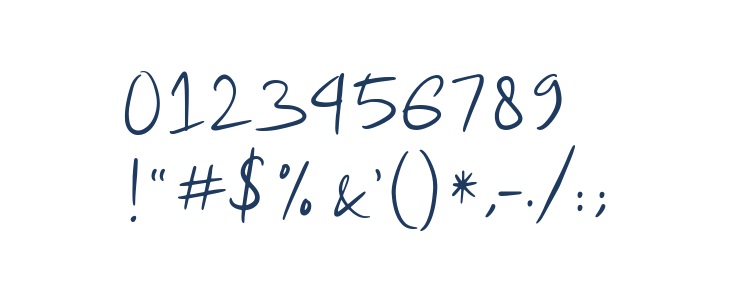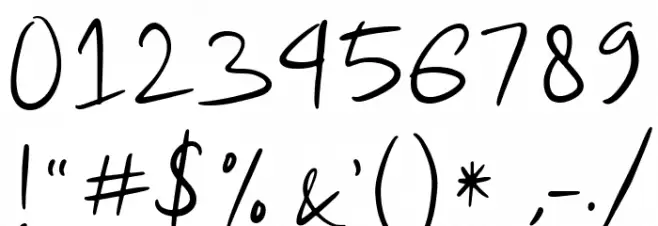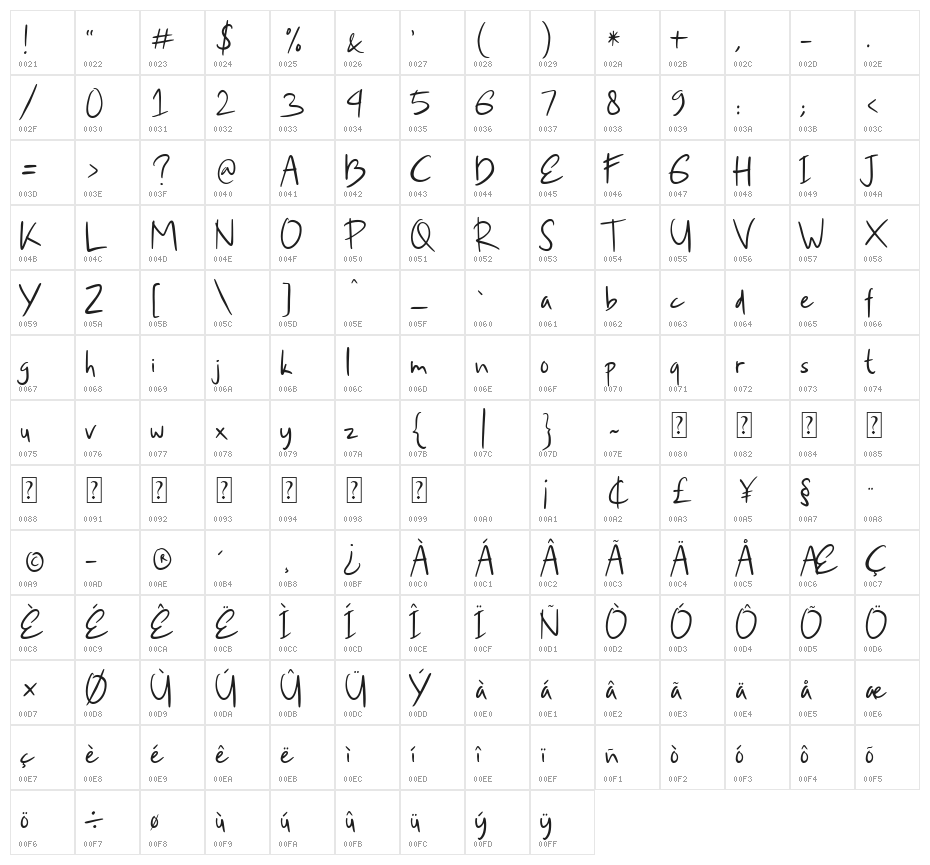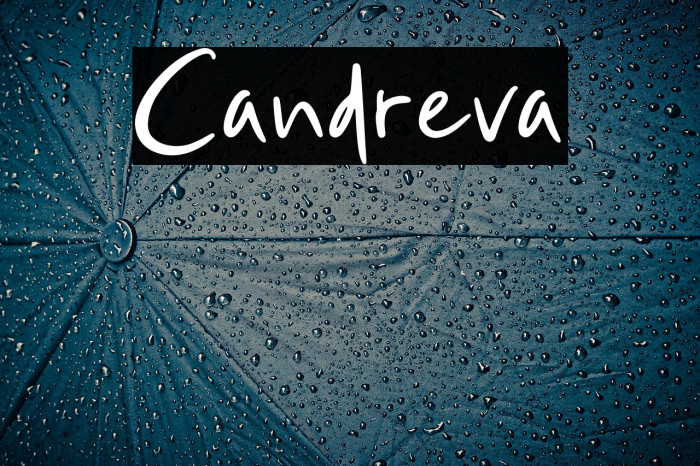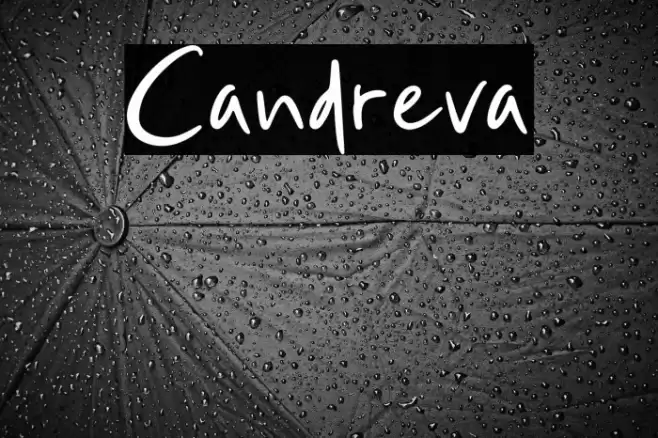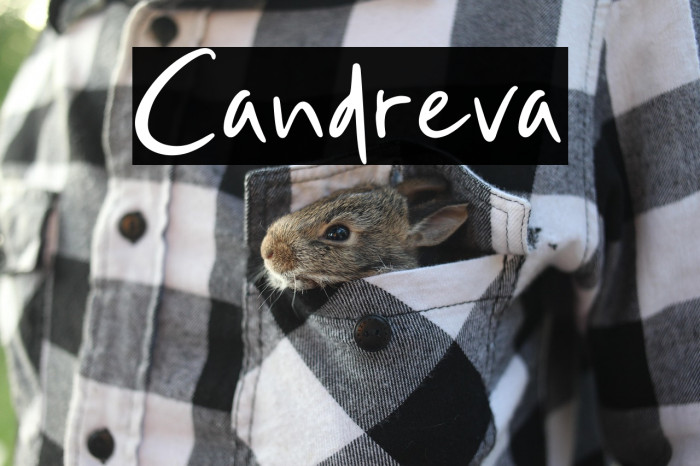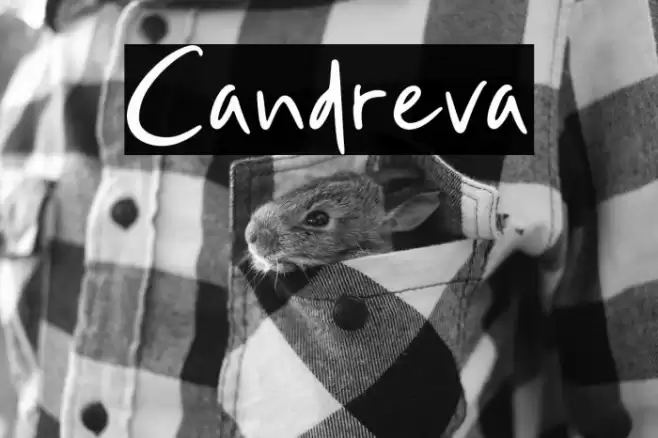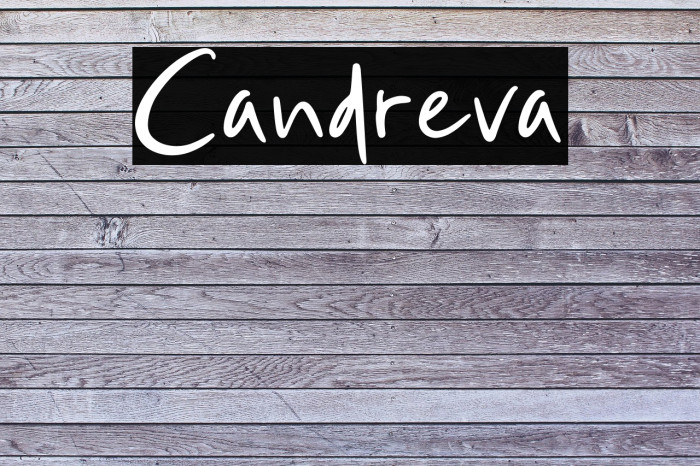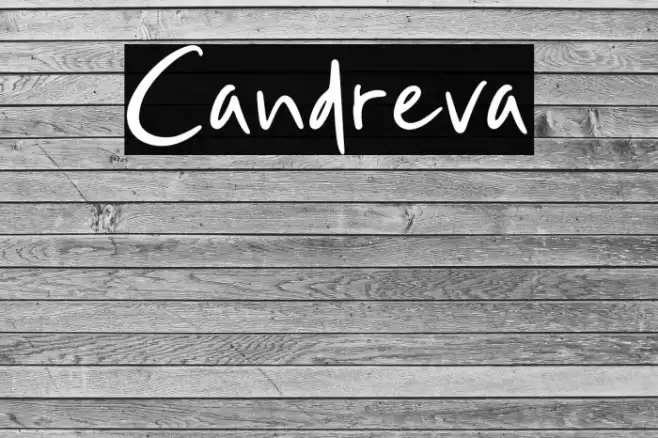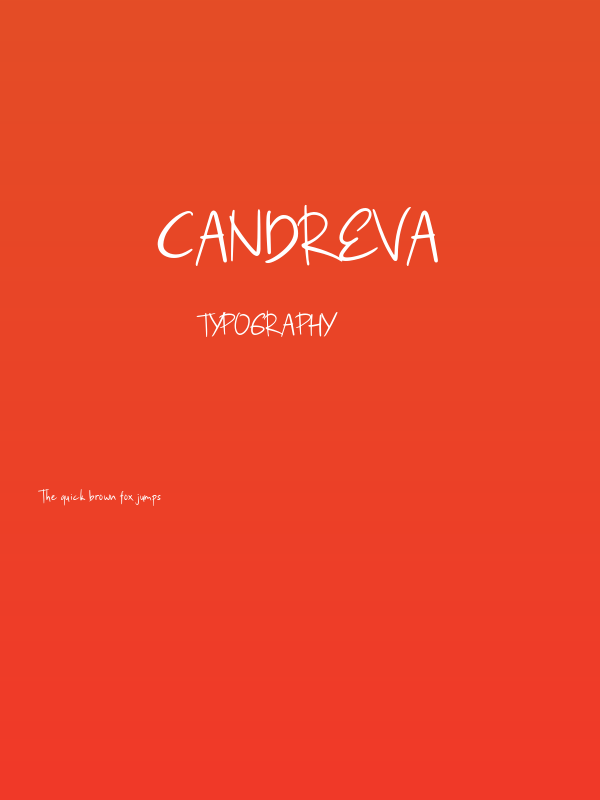
Candreva Font
Candreva Description
This font exudes a casual, handwritten style with a playful and informal appearance. The letters are slightly slanted, giving an impression of movement and fluidity. The strokes are uneven, mimicking the natural variations found in authentic handwriting. The uppercase letters are bold and prominent, while the lowercase letters maintain a consistent flow. Numbers and special characters are designed to match the overall aesthetic, ensuring a cohesive look across all text elements. This font is ideal for projects that require a personal touch, such as invitations, greeting cards, or creative branding.
| Proposed Projects | Ideal for invitations, greeting cards, personal branding, and creative projects. |